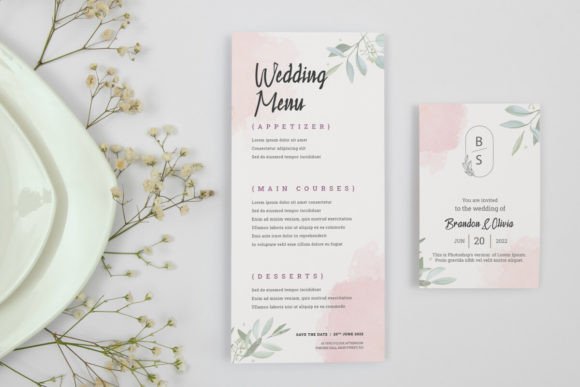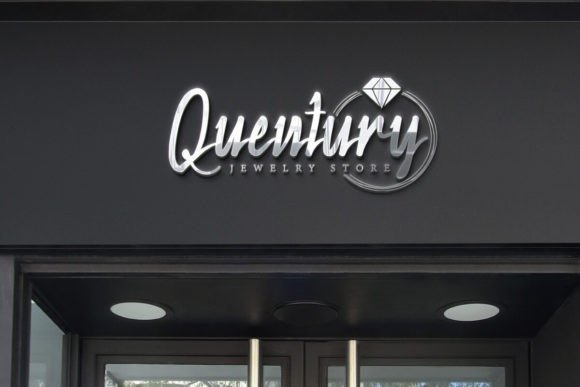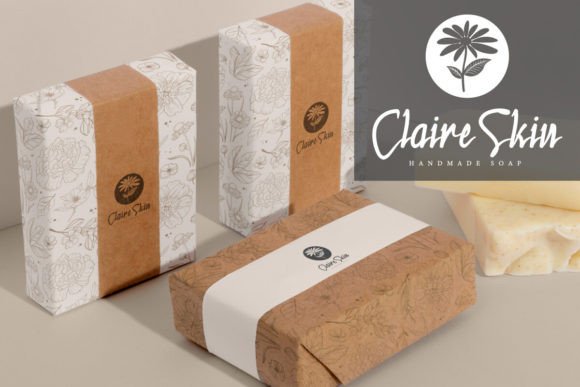
Introduction to Mc Diamond Font
Have you ever been working on a creative project, and suddenly, you stumble upon that perfect font that elevates your entire design? For many designers, this moment is a game-changer. It’s the spark that ignites a new idea, or the finishing touch that brings their vision to life. This is exactly what the Mc Diamond Font does – it’s a stylish script font with a handwritten style that adds a touch of elegance to any design.
Created by VinType Studio, the Mc Diamond Font is a high-quality design resource that is not only beautiful but also easy to read. Its versatility makes it suitable for a wide range of industries, from advertisement and beauty products to events and weddings. With its transparent background and free download option, this font is a valuable addition to any designer’s toolkit.
Key Features of Mc Diamond Font
- High-quality design resource for creative projects, perfect for logos, branding, and other visual elements.
- Unique, modern design with a transparent background, allowing for easy customization and versatility.
- Designed to be highly legible, making it suitable for a wide range of applications, from business cards to billboards.
- Comes in multiple weights and styles, providing a range of options for designers and artists.
Honest Review: Mc Diamond Font
I recently had the chance to work with the Mc Diamond Font, and I’m excited to share my honest thoughts on this design resource. I was initially drawn to its high quality and unique aesthetic, making it a great fit for my creative project.
- High-quality design: The Mc Diamond Font is incredibly detailed and has a crisp, clean look that’s perfect for a variety of design applications.
- Transparent background: This feature makes it easy to layer the font over different backgrounds, giving you more flexibility in your design.
- Limited character set: While the font is available for free, the character set is somewhat limited, which may not be ideal for projects that require a wide range of characters.
Overall, I’m impressed with the Mc Diamond Font, and I think it’s a great addition to any designer’s toolkit. While it may have some limitations, its high quality and unique aesthetic make it a valuable resource for creative projects. If you’re looking for a free design resource that can add some sparkle to your work, I’d definitely recommend checking out the Mc Diamond Font.
Mc Diamond Font
The Mc Diamond Font is a high-quality design resource perfect for creative projects. This font offers a unique and modern aesthetic, making it ideal for various applications.
Tips for Getting the Most Out of Mc Diamond Font
Use Mc Diamond Font with a transparent background to achieve a clean and modern look. Experiment with different font sizes and styles to create visually appealing designs.
Mc Diamond Font is ideal for:
- Branding and logos
- Posters and flyers
- Business cards and stationery